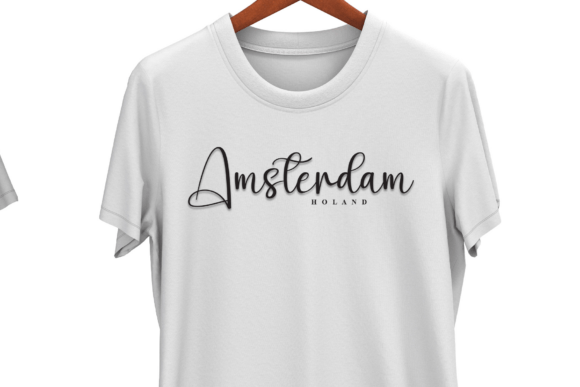
Finising Font: A Playful and Charming Script Font for Festive Designs
Are you looking for a font that can add a touch of warmth and joy to your designs? Look no further than Finising Font, a playful and charming script font that is perfect for holiday designs, greeting cards, and festive projects. With its smooth, flowing letters and fun, handwritten style, Finising Font is sure to make your designs stand out.
Key Features of Finising Font
- Playful and Charming: Finising Font has a unique and charming personality that is perfect for designs that require a touch of whimsy and fun.
- Smooth and Flowing Letters: The font features smooth, flowing letters that give it a natural and handwritten look.
- Fun and Handwritten Style: Finising Font has a fun and handwritten style that is perfect for holiday designs, greeting cards, and festive projects.
- Cute and Friendly Look: The font has a cute and friendly look that adds a warm, joyful touch to any design.
Perfect for Festive Designs
Finising Font is perfect for a variety of festive designs, including:
- Holiday Designs: Use Finising Font to create festive holiday designs, such as Christmas cards, Halloween posters, and Thanksgiving flyers.
- Greeting Cards: Add a personal touch to your greeting cards with Finising Font, perfect for birthdays, weddings, and other special occasions.
- Festive Projects: Use Finising Font to add a touch of fun and whimsy to your festive projects, such as party invitations, decorations, and more.
Design Tips for Using Finising Font
Here are some design tips for using Finising Font:
- Pair with Bold Fonts: Pair Finising Font with bold fonts to create a striking contrast and add visual interest to your designs.
- Use Bright Colors: Use bright and festive colors to match the playful and charming personality of Finising Font.
- Add Decorations: Add decorations, such as holly leaves or snowflakes, to give your designs a festive touch.
Benefits of Using Finising Font
- Unique and Eye-Catching: Finising Font is a unique and eye-catching font that will make your designs stand out.
- Easy to Read: The font is easy to read, even at small sizes, making it perfect for a variety of design applications.
- Versatile: Finising Font is a versatile font that can be used for a variety of design projects, from holiday designs to greeting cards and more.
Finising Font vs. Other Script Fonts
So, how does Finising Font compare to other script fonts on the market? Here are a few key differences:
- More Playful: Finising Font is more playful and charming than other script fonts, making it perfect for festive designs.
- Smoother Letters: The font features smoother letters than other script fonts, giving it a more natural and handwritten look.
- Easier to Read: Finising Font is easier to read than other script fonts, even at small sizes.
What Designers Say About Finising Font
Finising Font is a game-changer for my holiday designs. It’s so easy to use and adds a touch of whimsy and fun to my projects.
Designer, Emily
I was blown away by the quality of Finising Font. The letters are smooth and flowing, and the font is easy to read.
Designer, David
In conclusion, Finising Font is a playful and charming script font that is perfect for holiday designs, greeting cards, and festive projects. With its smooth, flowing letters and fun, handwritten style, Finising Font is sure to make your designs stand out. Download Finising Font today and start creating designs that will bring joy and warmth to your audience.